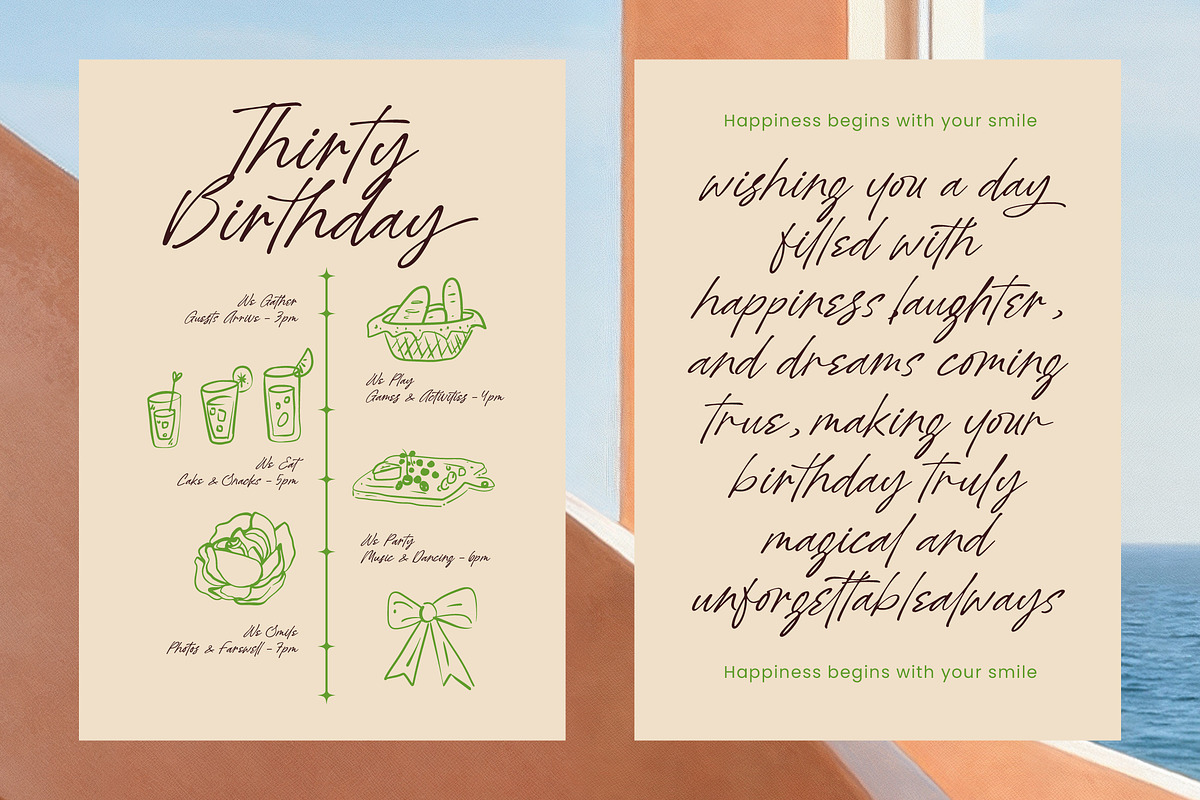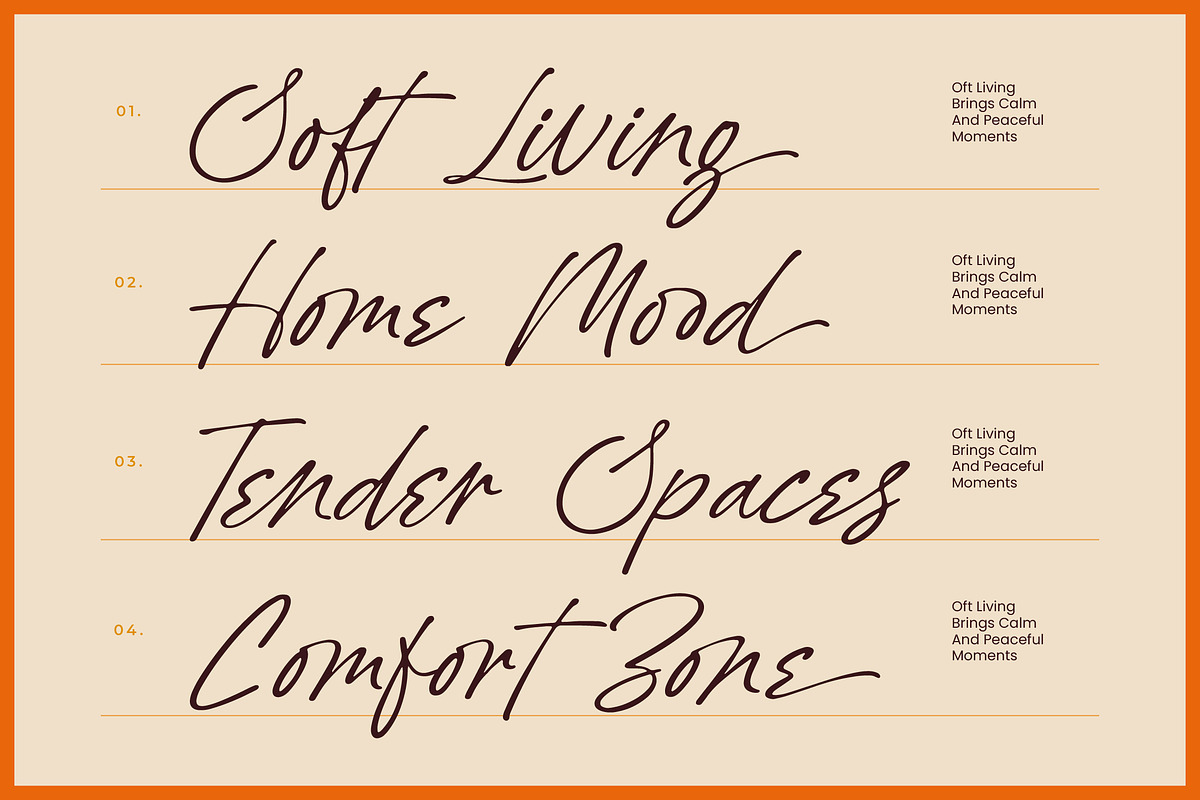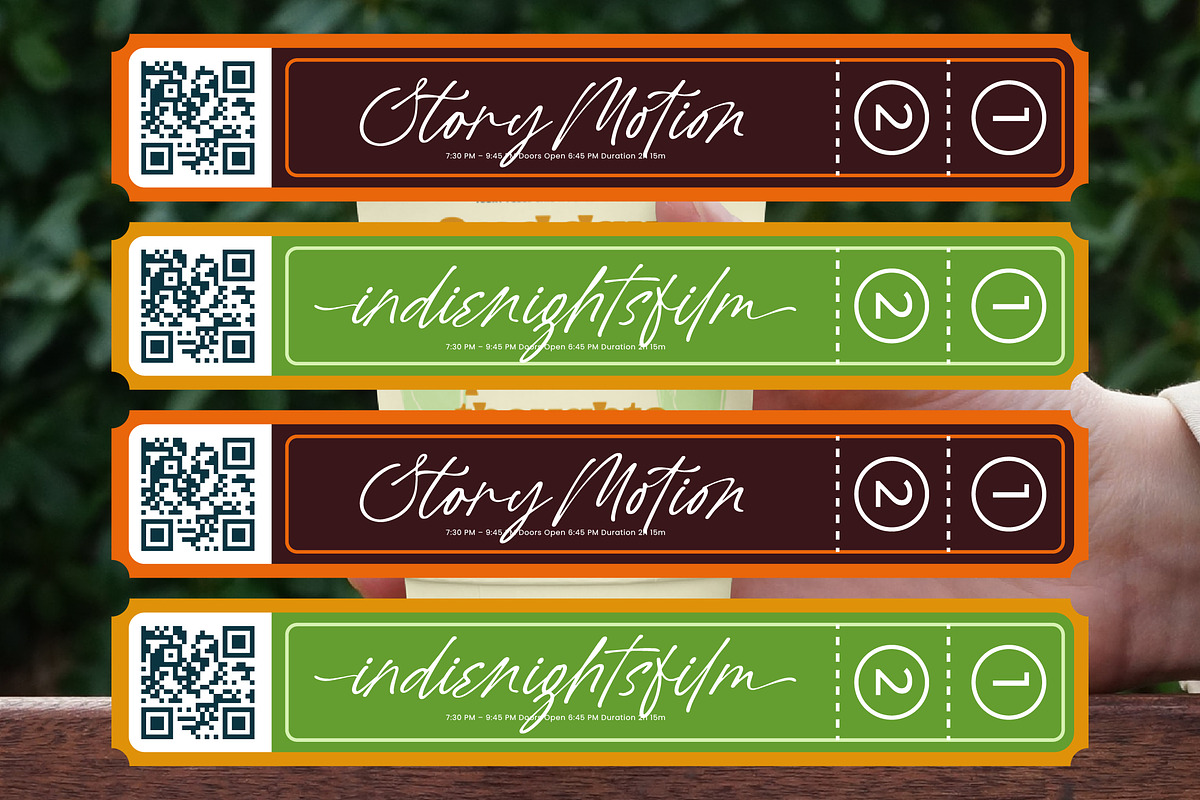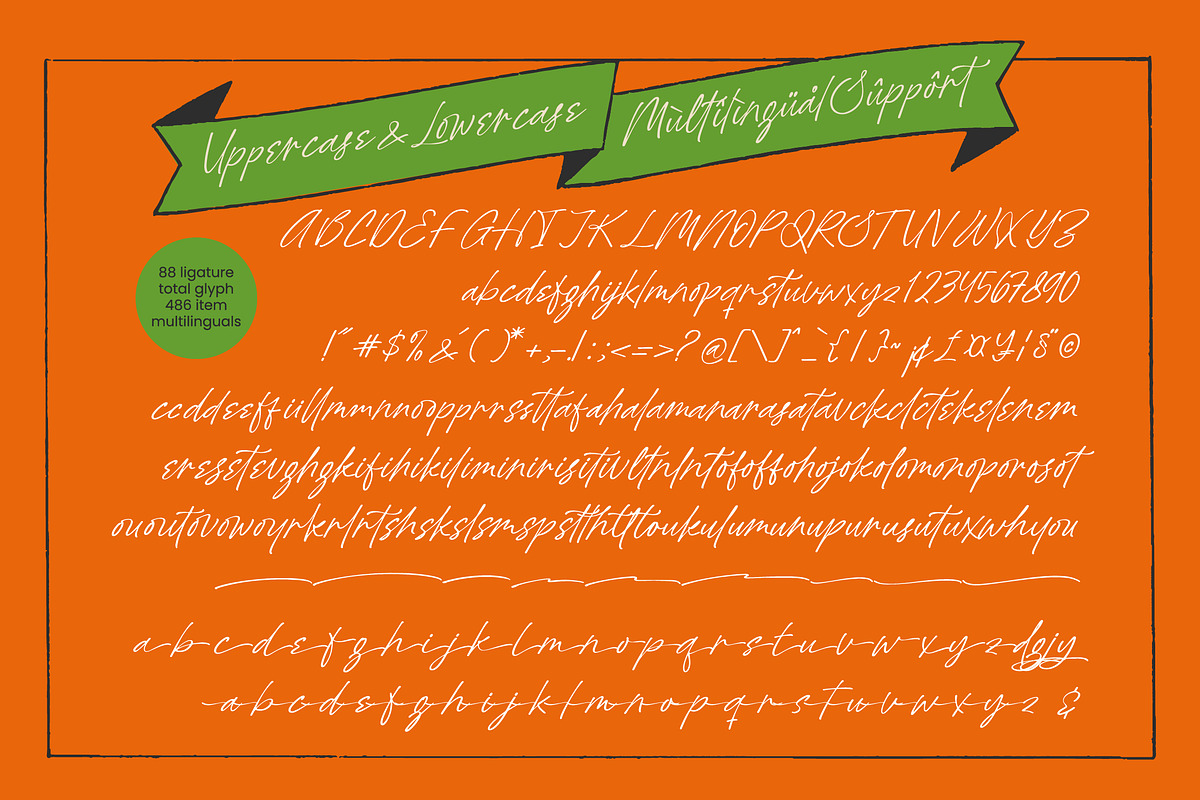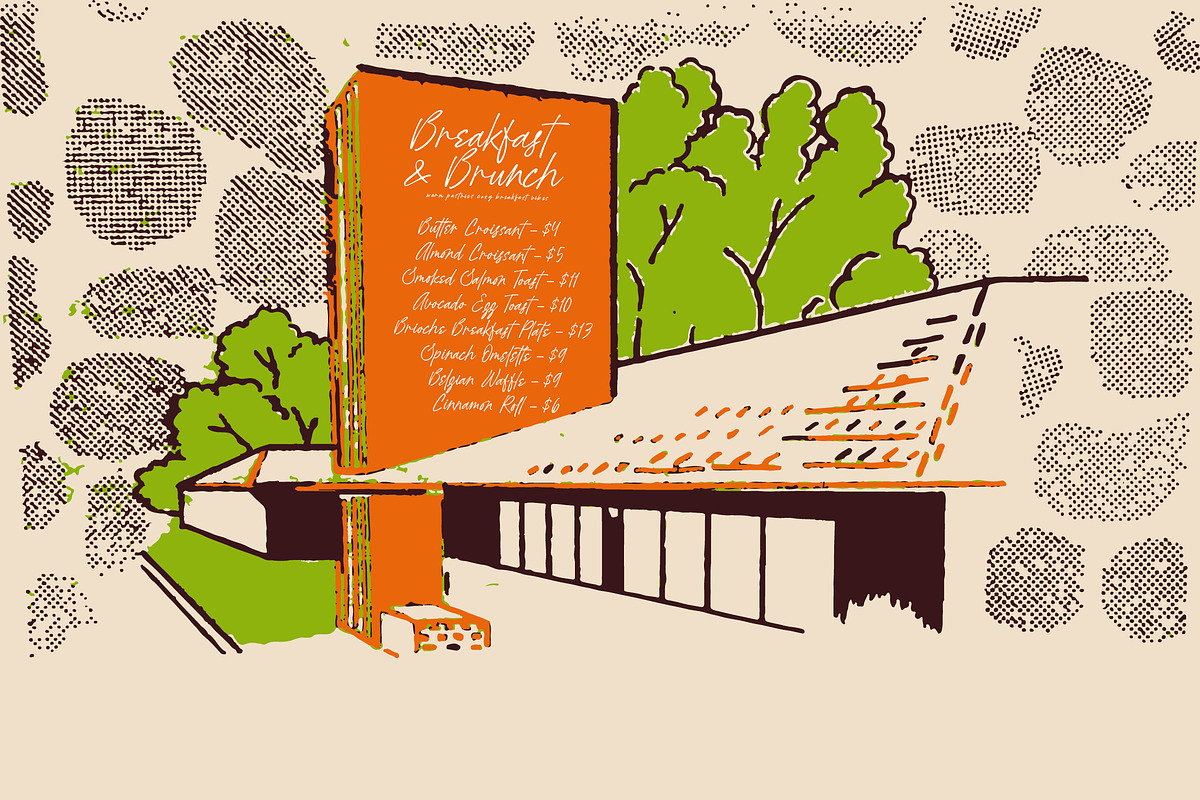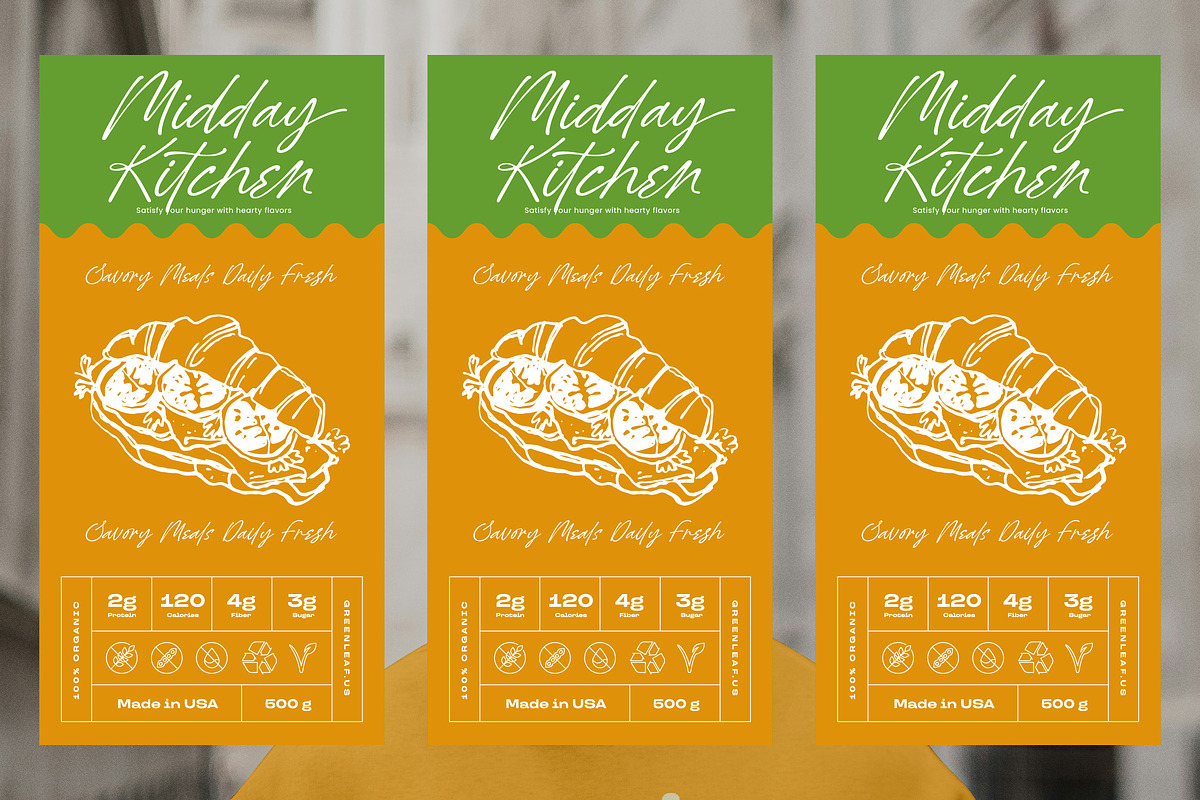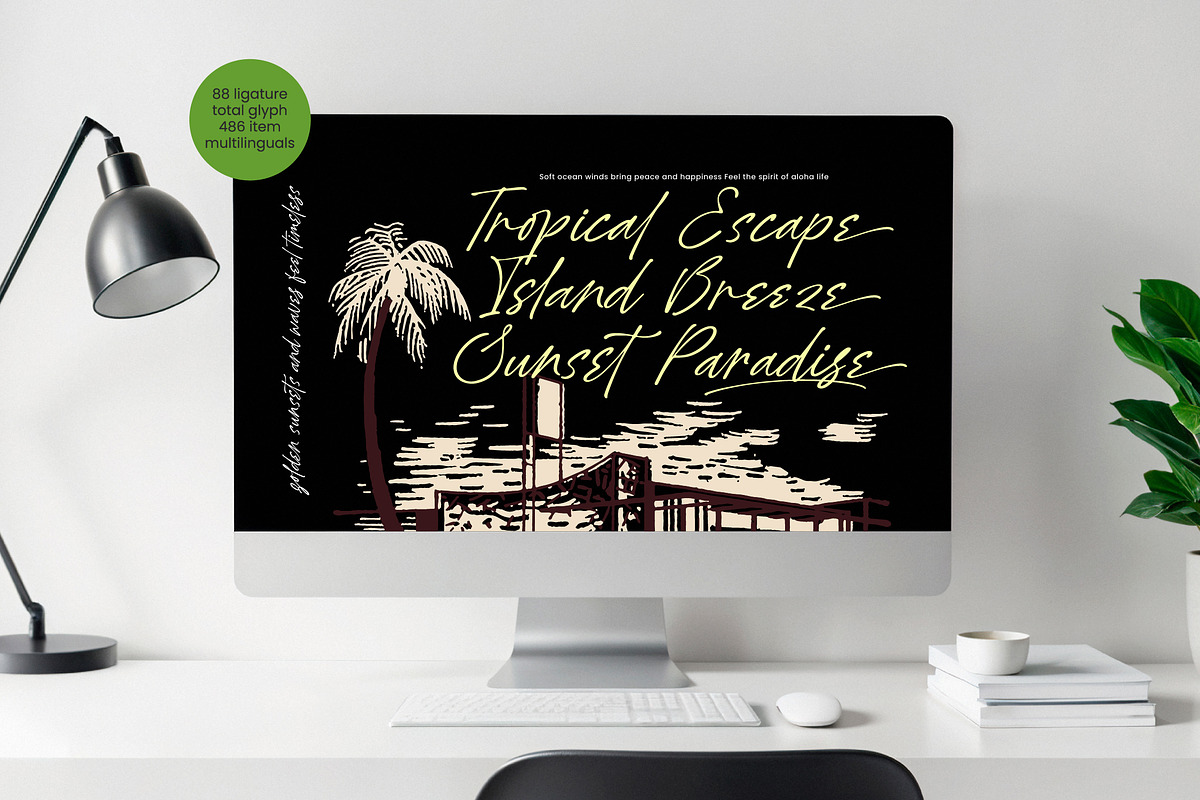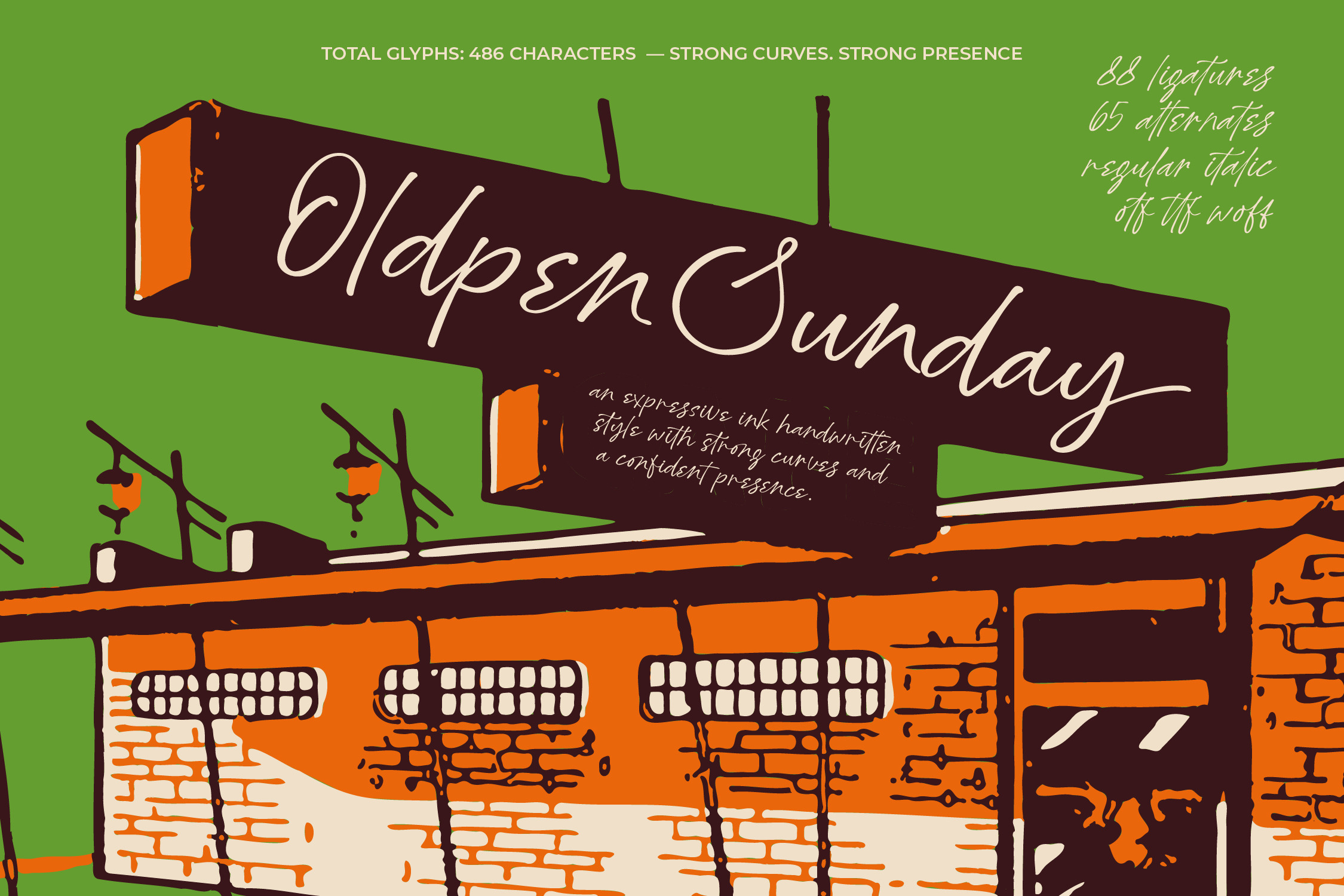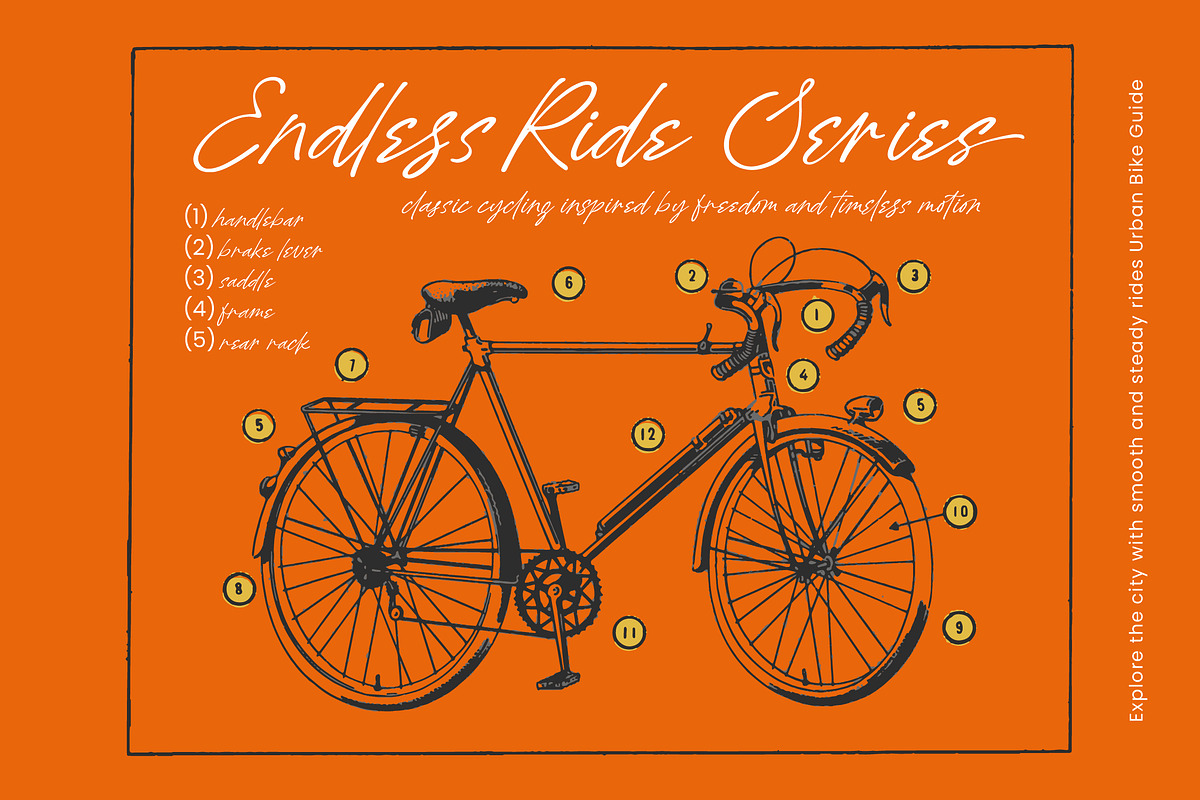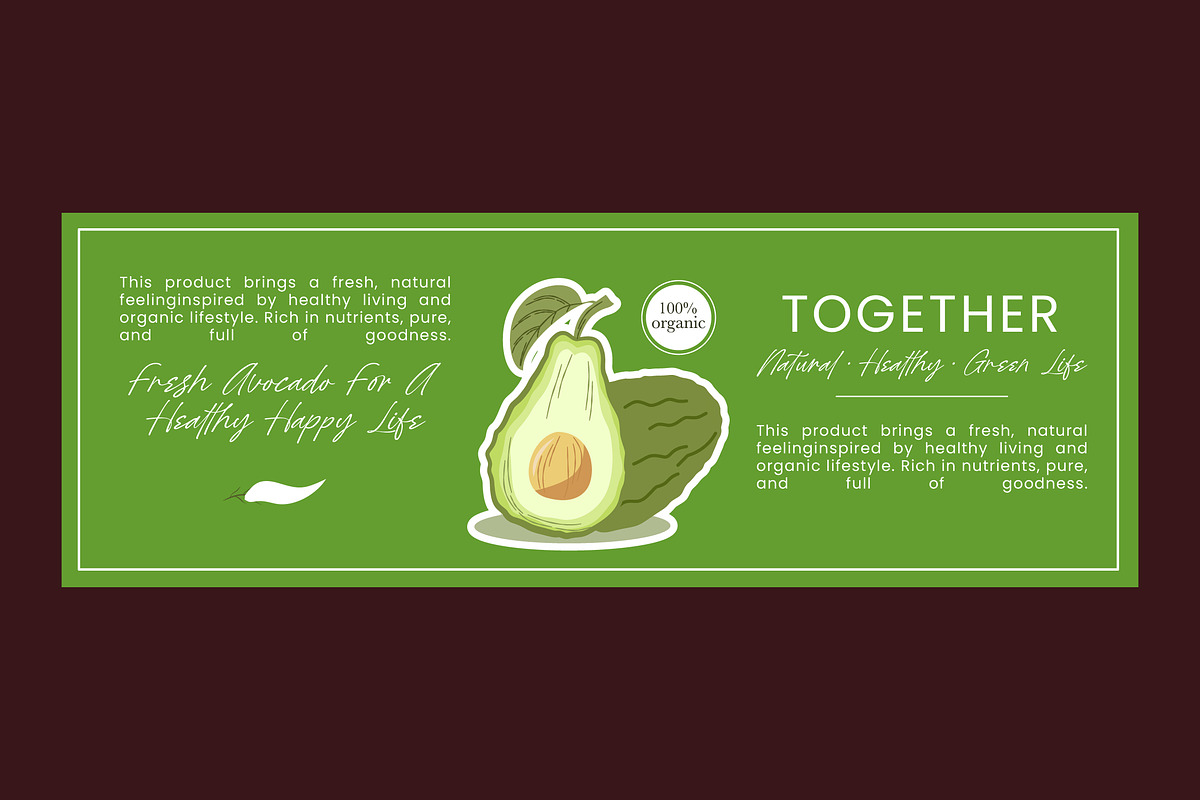
Oldpen Sunday Ink Handwritten Font
Oldpen Sunday – Ink Handwritten Font , Elevate your creative projects with the organic charm of authentic ink craftsmanship found in Oldpen Sunday - Ink Handwritten Font. This expressive ink style is defined by its strong curves and a confident presence, offering a unique human touch that digital typefaces often lack. Whether you are aiming for a vintage aesthetic or a contemporary hand-drawn look, Oldpen Sunday - Ink Handwritten Font provides the visual weight and artistic flair necessary to captivate any audience immediately.
Experience unparalleled flexibility through a robust set of typographic features, including 88 ligatures and 65 alternates that ensure your text looks truly custom. With its extensive multilingual support, Oldpen Sunday - Ink Handwritten Font adapts seamlessly across global markets, making it incredibly versatile for international projects. The inclusion of 486 total characters allows designers to maintain stylistic consistency while communicating effectively across various languages and cultural contexts.
Transform your brand identity with a typeface perfectly suited for luxury branding, bespoke packaging, and editorial design. Oldpen Sunday - Ink Handwritten Font is ideal for logo design, social media graphics, and advertising campaigns that require a personal touch. Its high-contrast strokes and fluid movement make it perfect for high-end product labels and promotional materials where sophistication and individuality are paramount.
Secure a timeless aesthetic that bridges the gap between classic artistry and modern design needs with this premium font. Available in both Regular and Italic weights, Oldpen Sunday - Ink Handwritten Font empowers creators to build dynamic layouts with ease. By choosing Oldpen Sunday - Ink Handwritten Font, you are investing in a professional-grade tool that enhances the perceived value of your work while maintaining a polished, commercial appeal.